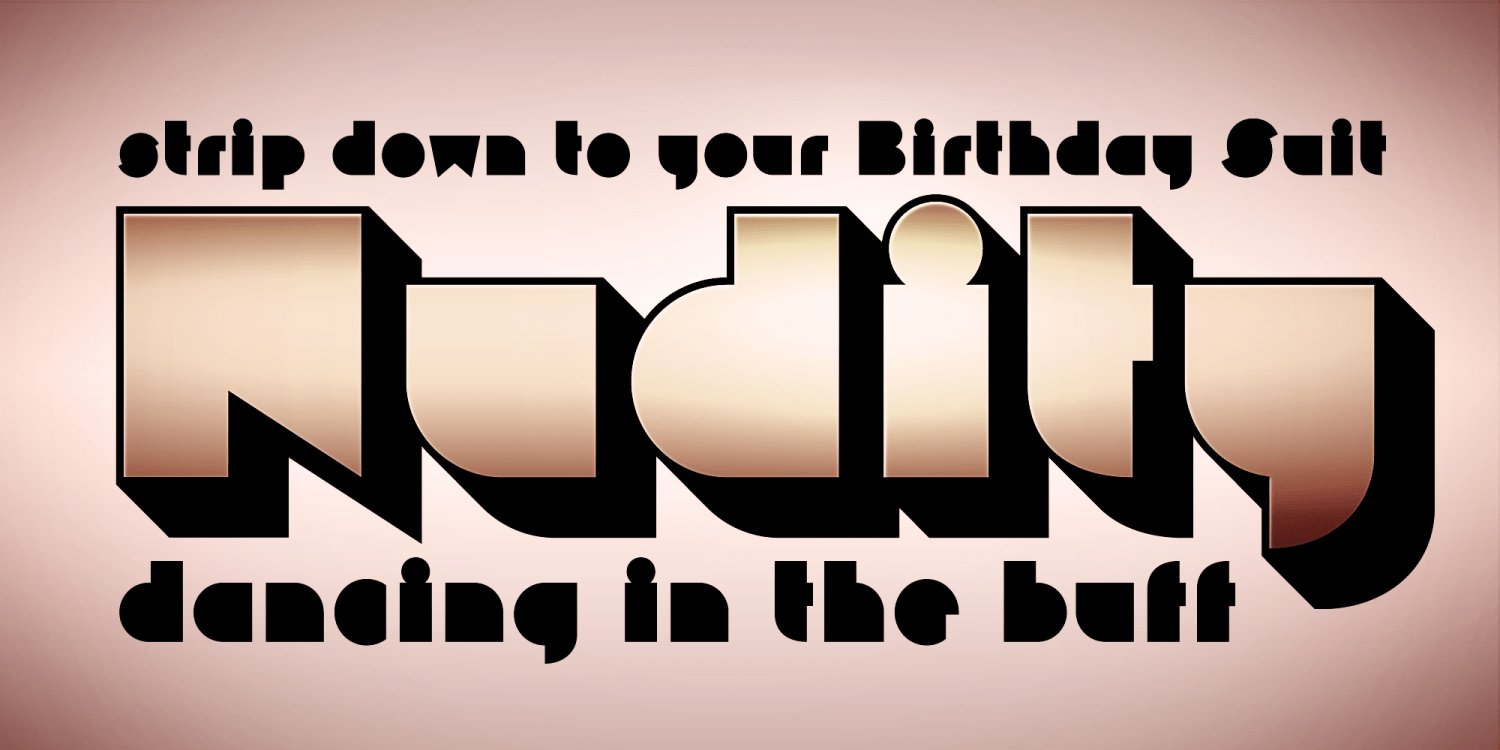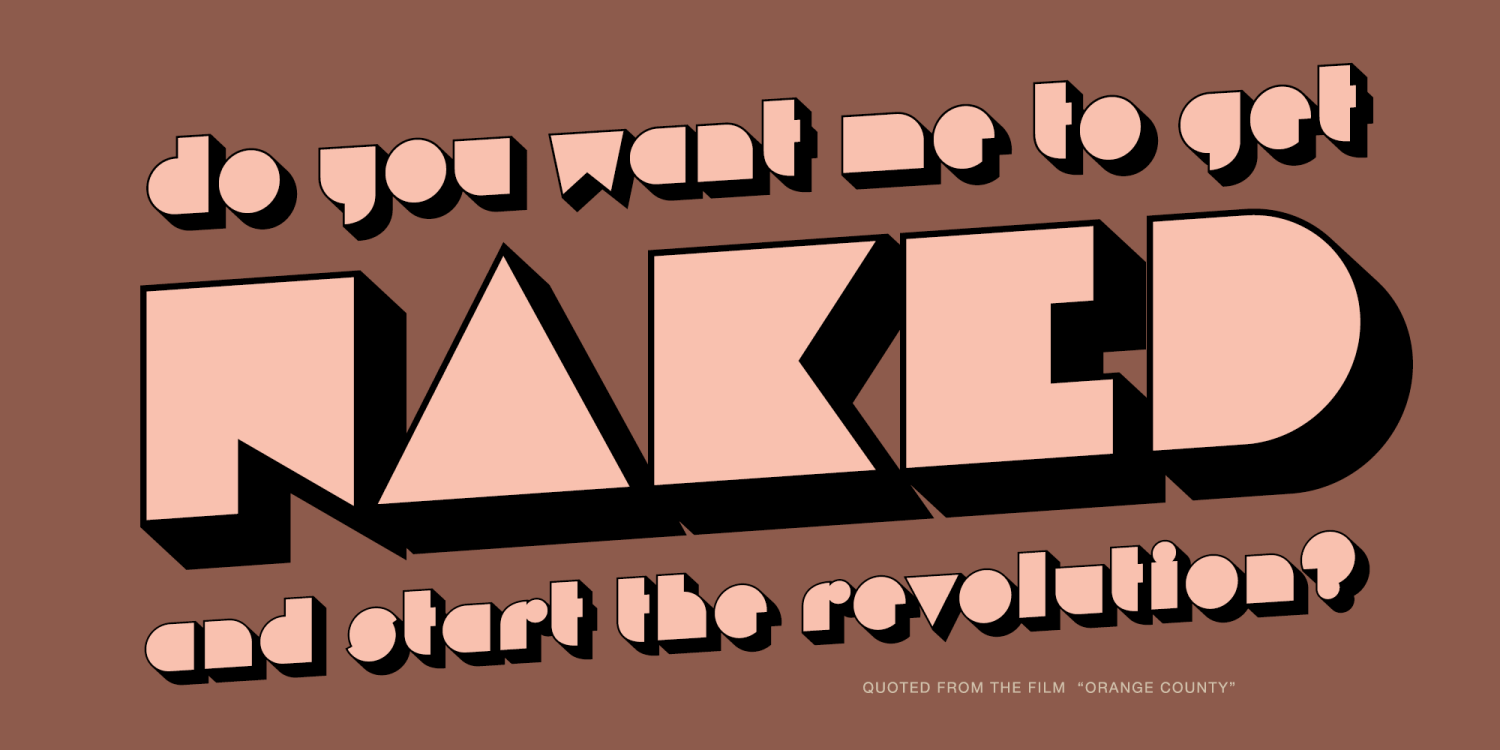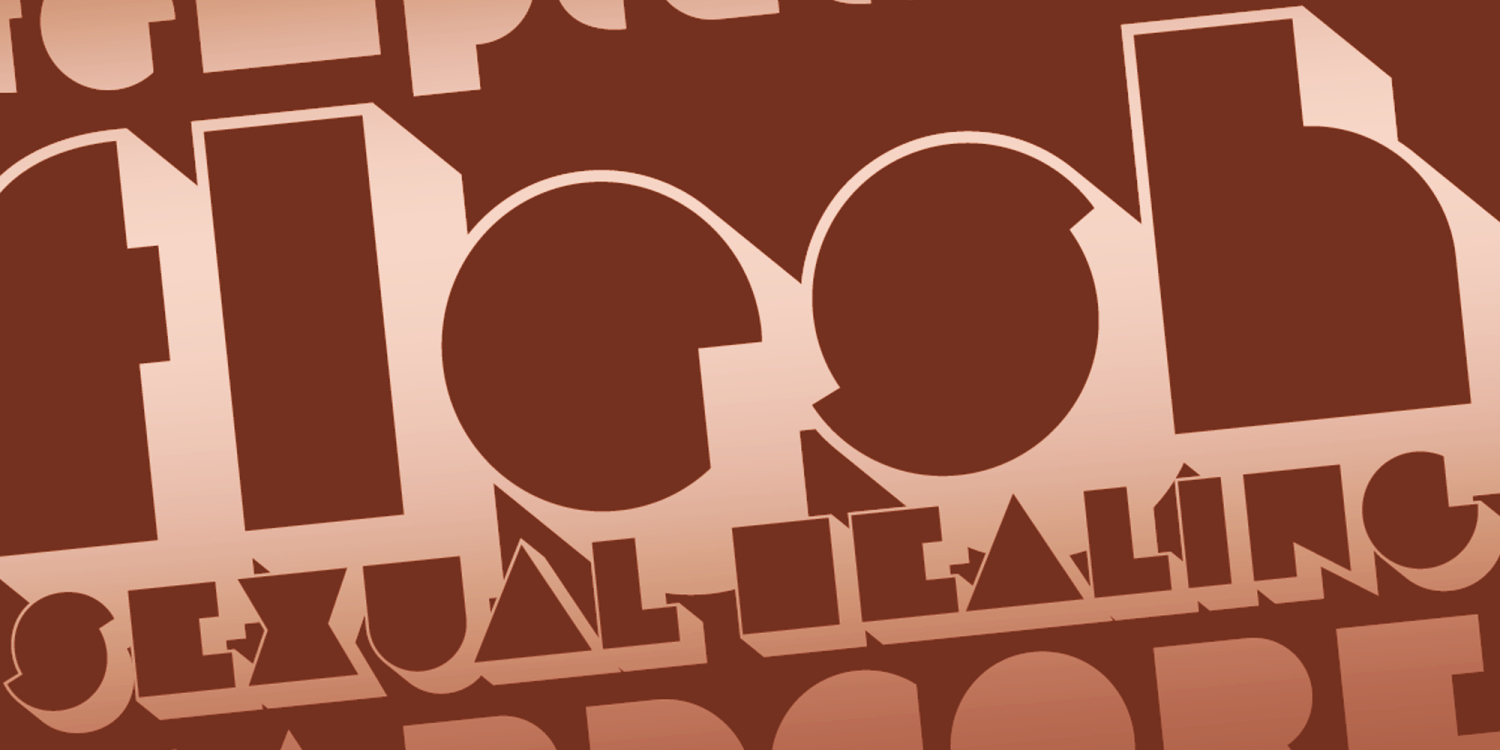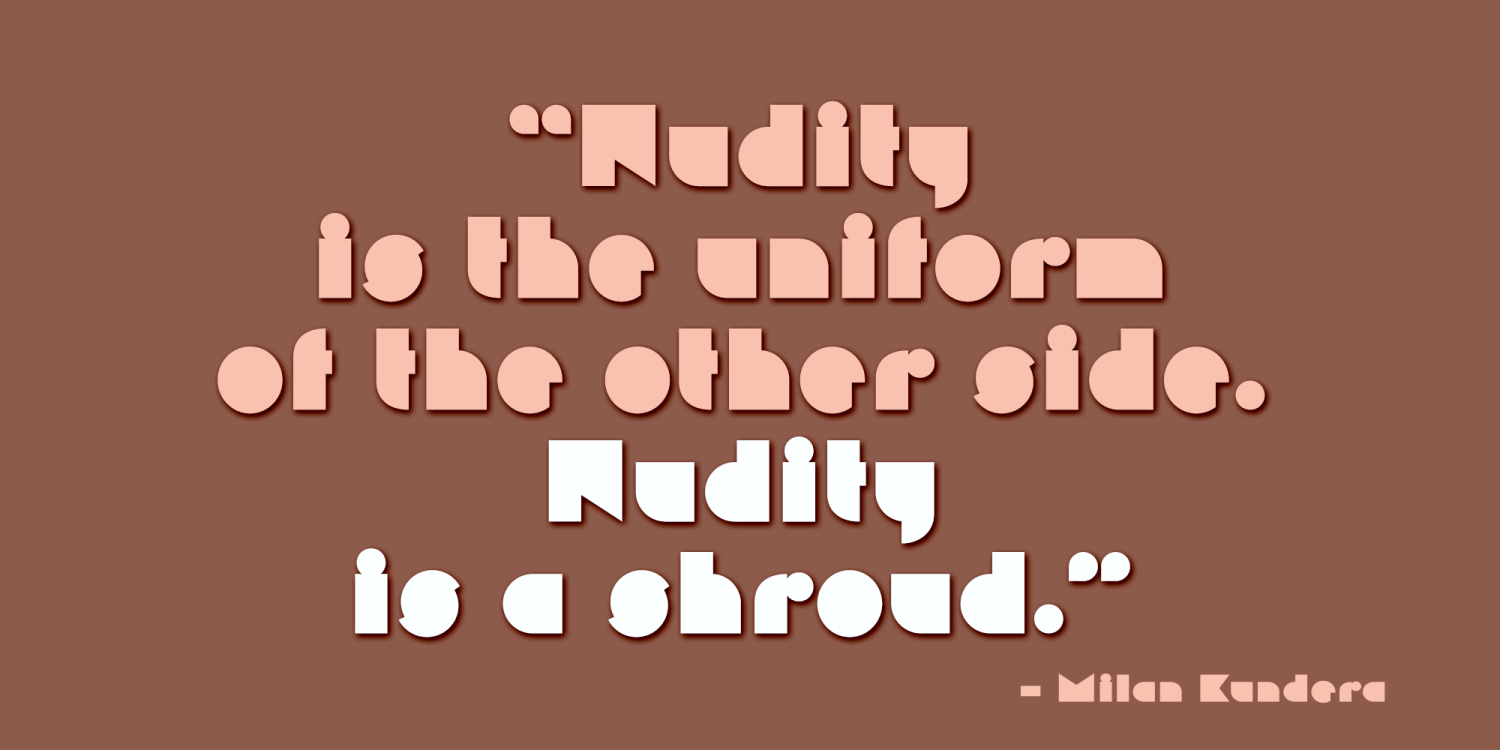
Nudity
Full of retro flare, the Nudity family started as a digitization of a film typeface called Ad Shadow by LetterGraphics. The font was then split into 2 layerable fonts to recreate the effect without uncomfortable overlaps of the extruded shadow effect, which in turn spawned the Solid version of the font that can be used as a standalone. The original limited character set has been fleshed out to a fully functional typeface.
A little constructivist, a little discoteque, a little abstract all rolled into one, Nudity strips down to the bare necessities of letter recognition. So you have to ask yourself, can you do with a little Nudity in your designs?